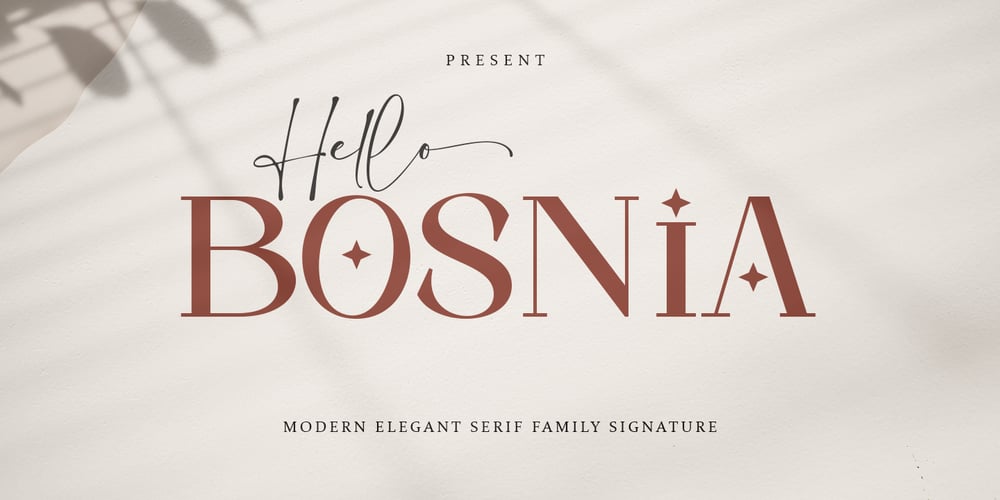
Hello Bosnia Serif Font Family was designed by khaidir and published by Gatype. Hello Bosnia Serif contains 2 styles and family package options. Hello Bosnia is a modern serif family signature font that is packaged in a modern and classy style, complete with your OpenType feature access to access a large selection of alternative fonts and bindings, the choice of fonts you like from large and small font variations to luxurious and elegant looks. This font is perfect for branding projects, Logo design, Apparel Branding, packaging, magazine titles, advertisements, T-shirts, postcards and more.Hello Bosnia is encoded with PUA Unicode, which allows full access to all additional characters without having to design any special software. Mac users can use Font Book and Windows users can use Character Map to view and copy any additional characters to paste into your favorite text editor/app.Designer: khaidir